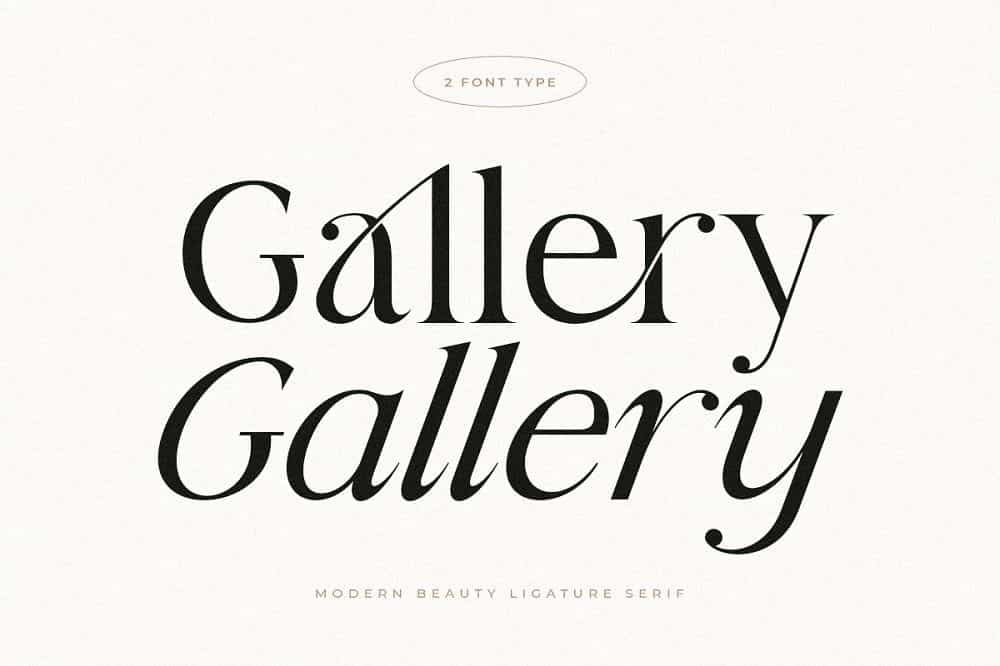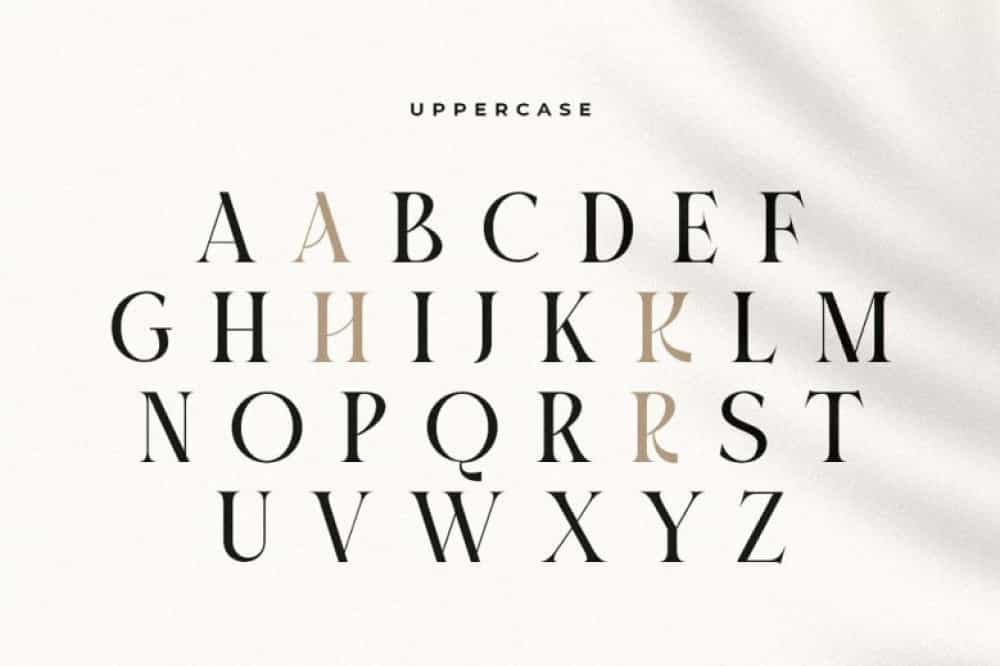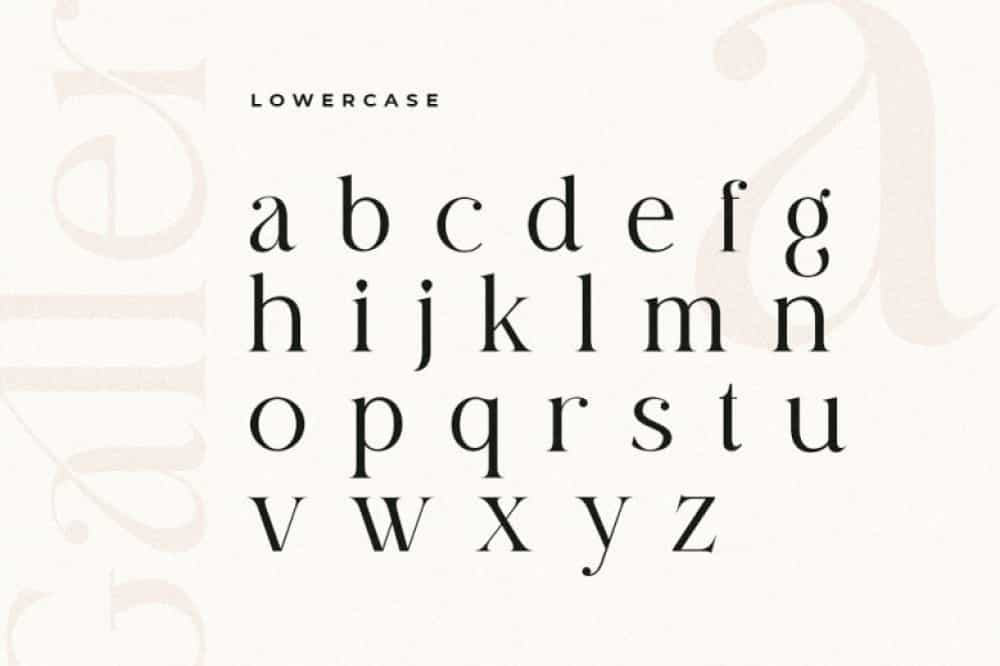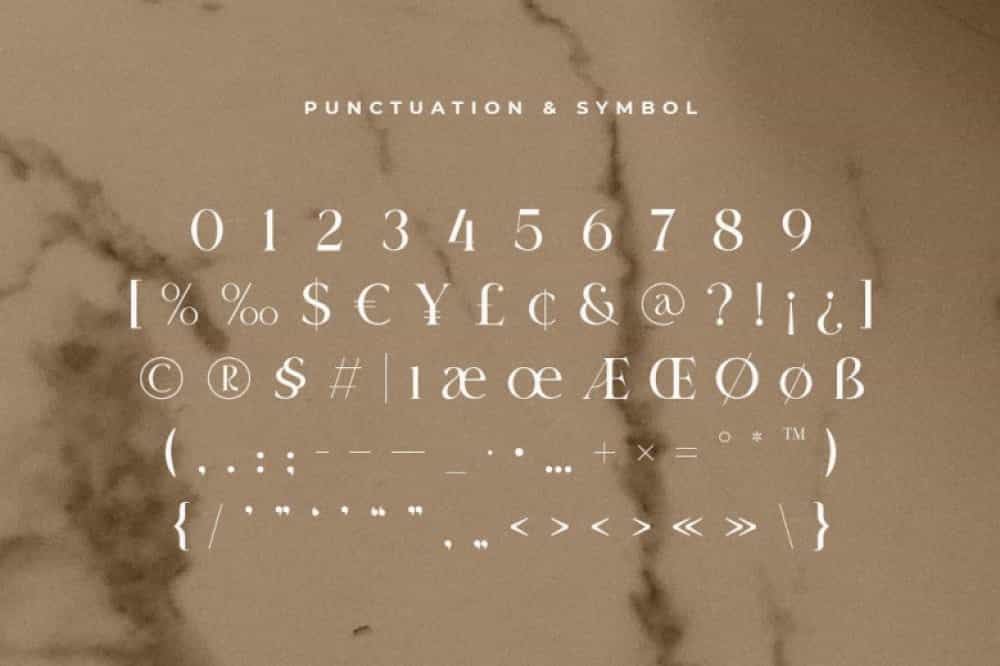
Gallery is a characteristic and elegant serif font that features sharp edges along with soft shapes for a current aesthetic. With clean lines and refined elegance, this font is ideal for editorial designs, luxury branding, and web typography; it’s a perfect addition to any composition. Select Erlangg to add a modern and stylish look in your artistic works.